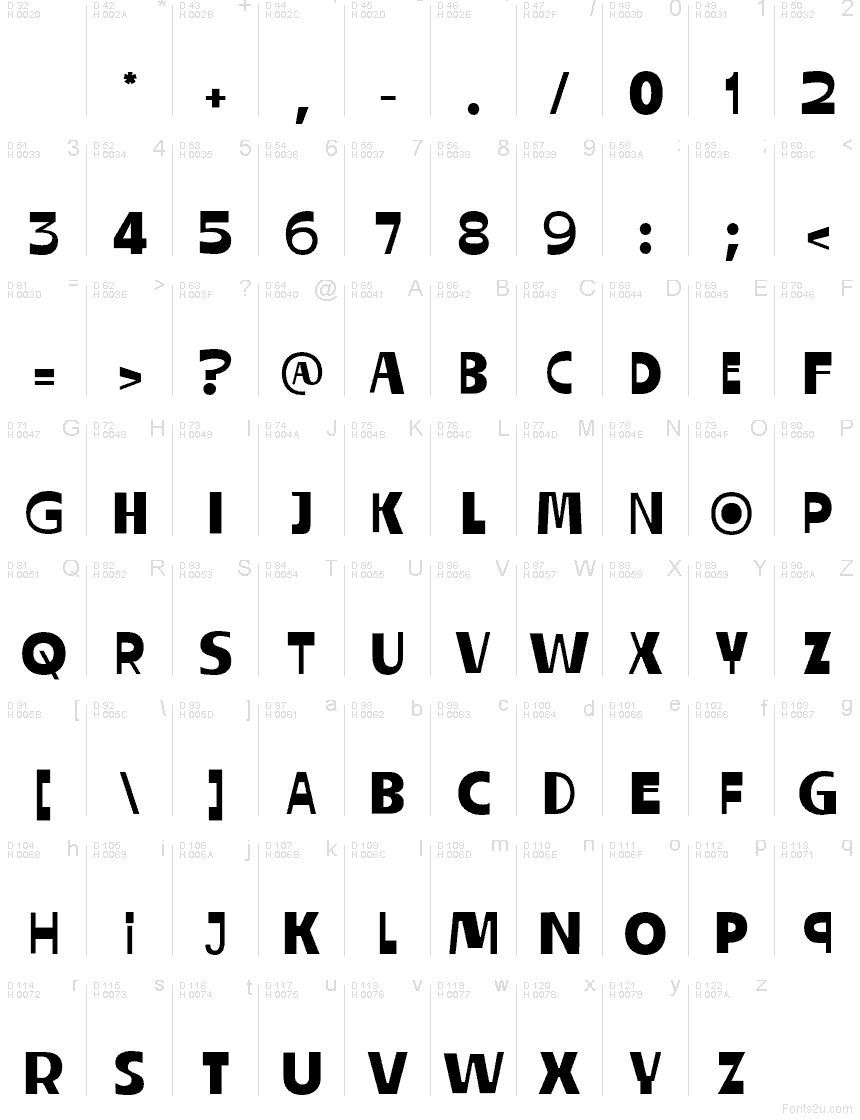
Razor Block Regular
Razor Block font by Wildan Suprian Syah - Afkari Studio is a free comic display typeface with a bold, slabby structure carved into sharp, slicing angles. Each letter feels like it’s been chopped from thick inked cardboard, with chunky strokes, tight spacing, and sudden cuts that give it a punchy, urban energy. It reads loud and clear, but those razor-edged corners keep it playful and slightly dangerous, like a comic sound effect frozen mid-impact.
Using Razor Block, headlines snap into focus and stay there, making this free font a natural fit for comic covers, action posters, YouTube thumbnails, gaming graphics, stickers, and bold social media banners. The blocky shapes hold up at large sizes, so don’t be afraid to go big and let the letters crowd the frame. For a simple pairing, use Razor Block for titles and a clean, neutral sans serif for supporting text.